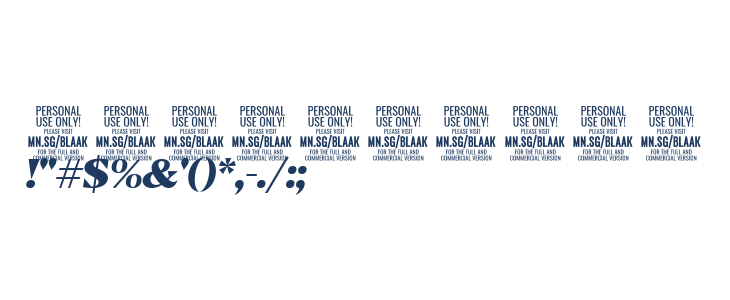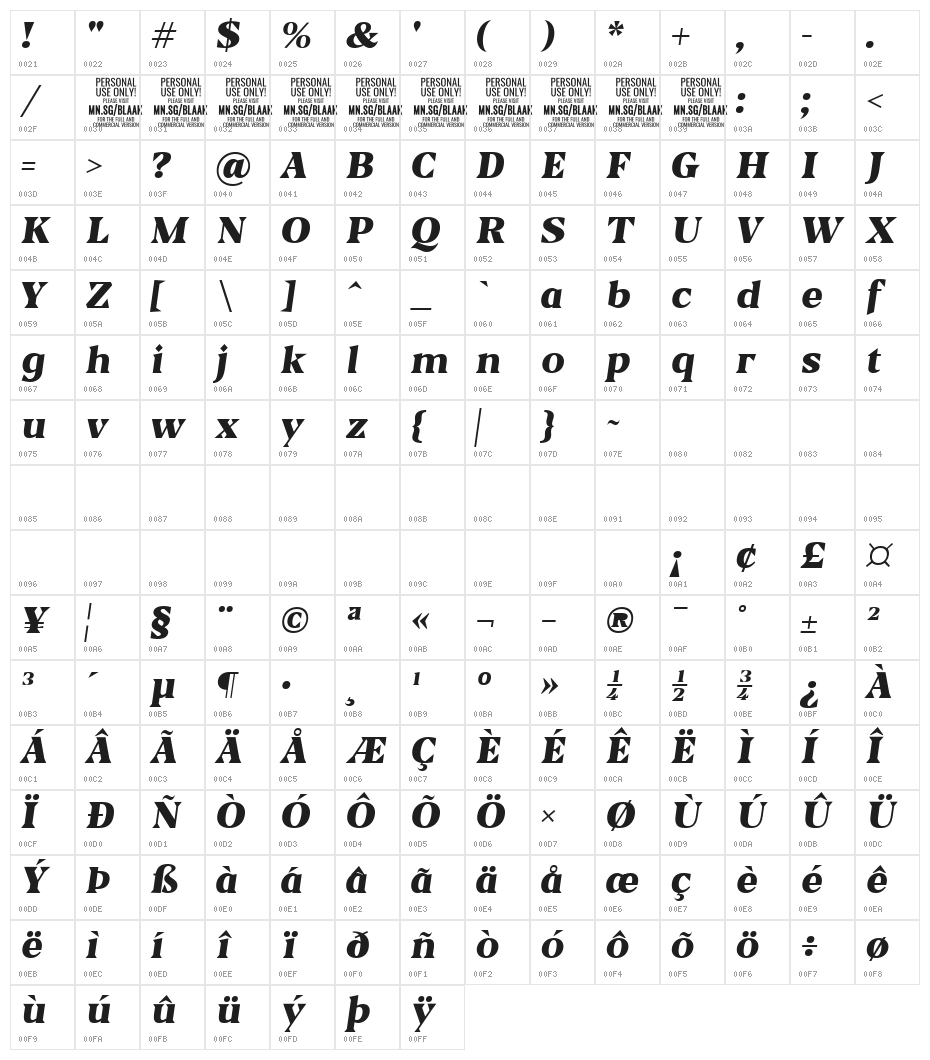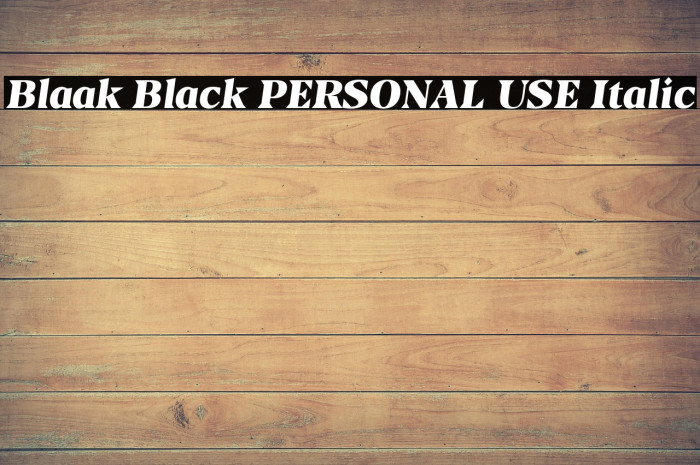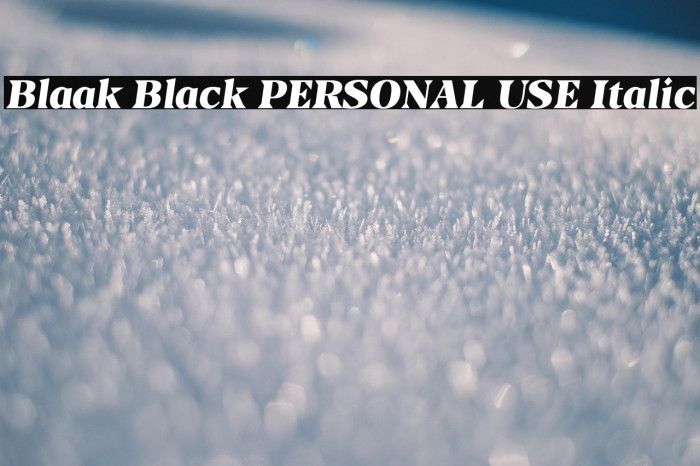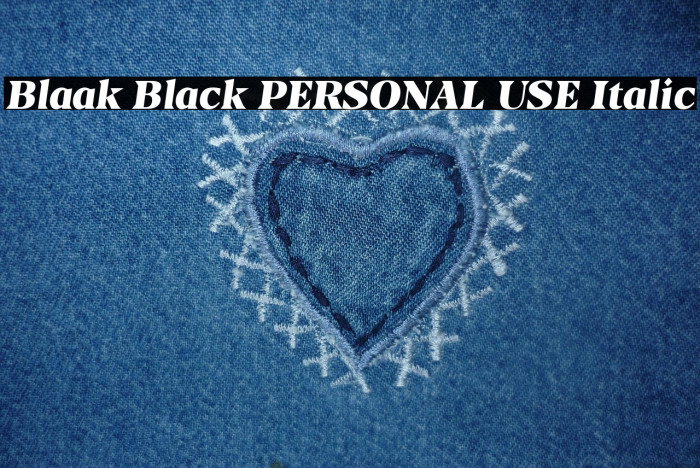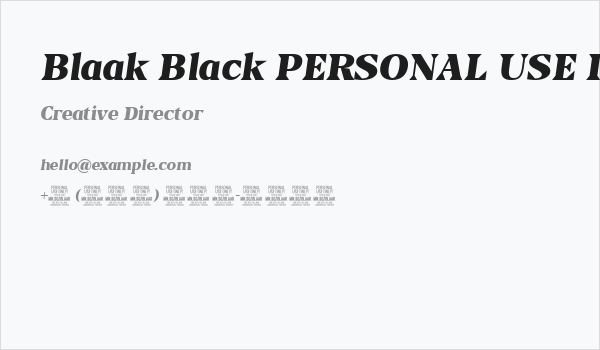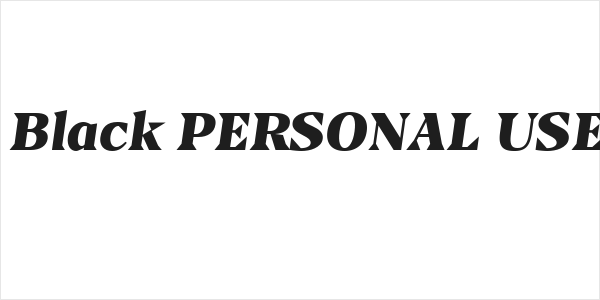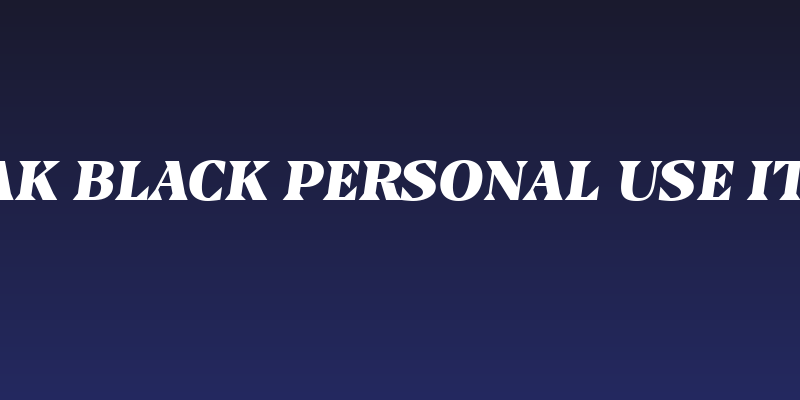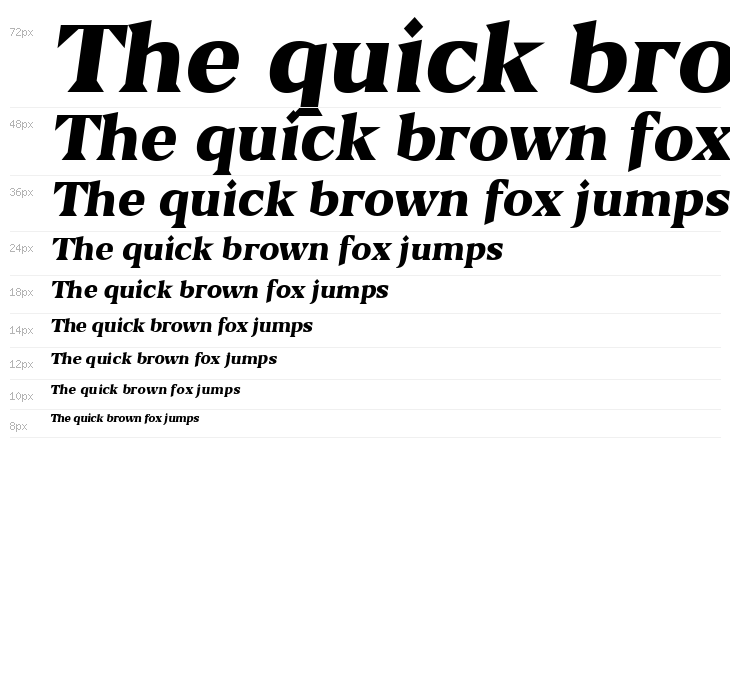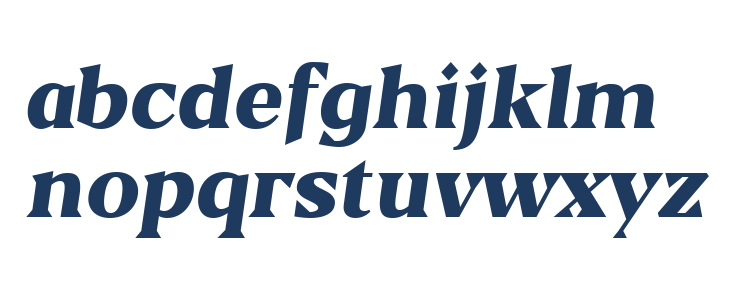
Blaak Black PERSONAL USE Italic Font
Blaak Black PERSONAL USE Italic Description
This font features a bold and dynamic style with a strong italic slant, giving it a sense of movement and energy. The characters are thick and robust, with sharp serifs that add a touch of elegance and sophistication. The uppercase letters are particularly striking, with a commanding presence that makes them ideal for headlines or titles. The lowercase letters maintain the same boldness, ensuring consistency across different text sizes. The numerals and special characters are equally bold, making them stand out effectively. Overall, this font combines traditional serif elements with a modern twist, making it versatile for various design needs.
| Proposed Projects | Ideal for branding, editorial design, posters, and advertising where a strong and elegant presence is required. |